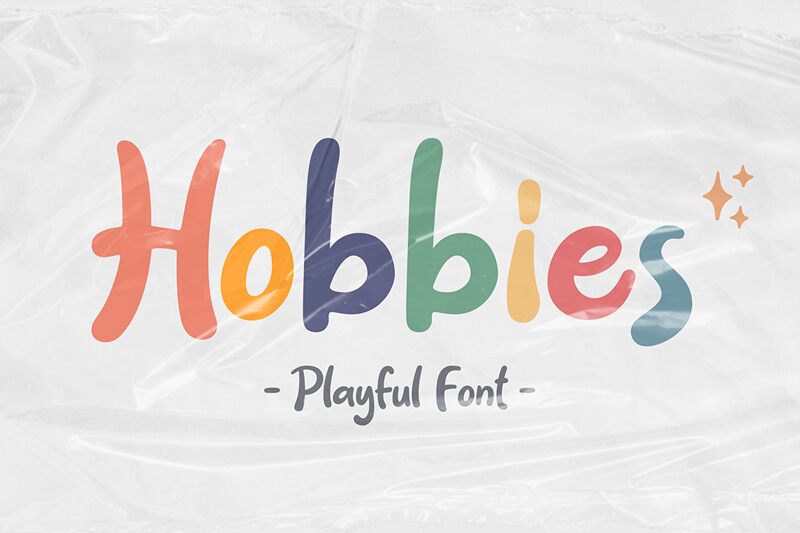
Hobbies
Hobbies font designed by Weape Studio is a bold, rounded typeface. It has a playful style with smooth curves and low contrast strokes making this font look casual and friendly on any creative project. This font is PUA encoded which means you can access all of the glyphs.
Hobbies is perfect for children themed designs, kids t-shirts, party banners, birthday invites; basically anything related to children or playful designs. Also use it for social media campaigns on Instagram Stories and TikTok videos where you need some cool letters. Hobbies pairs well with creamy colors from pastels to sorbet ones!